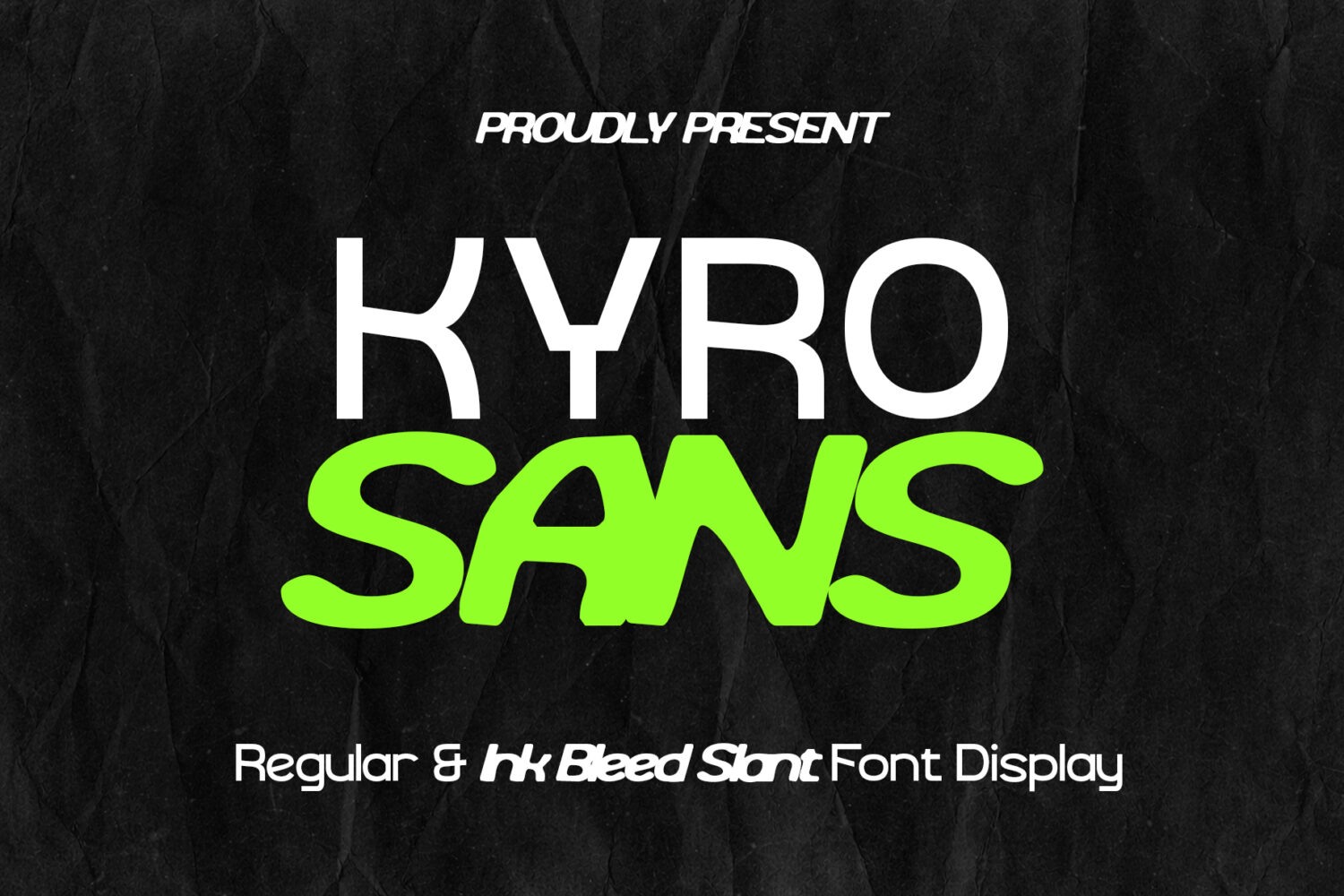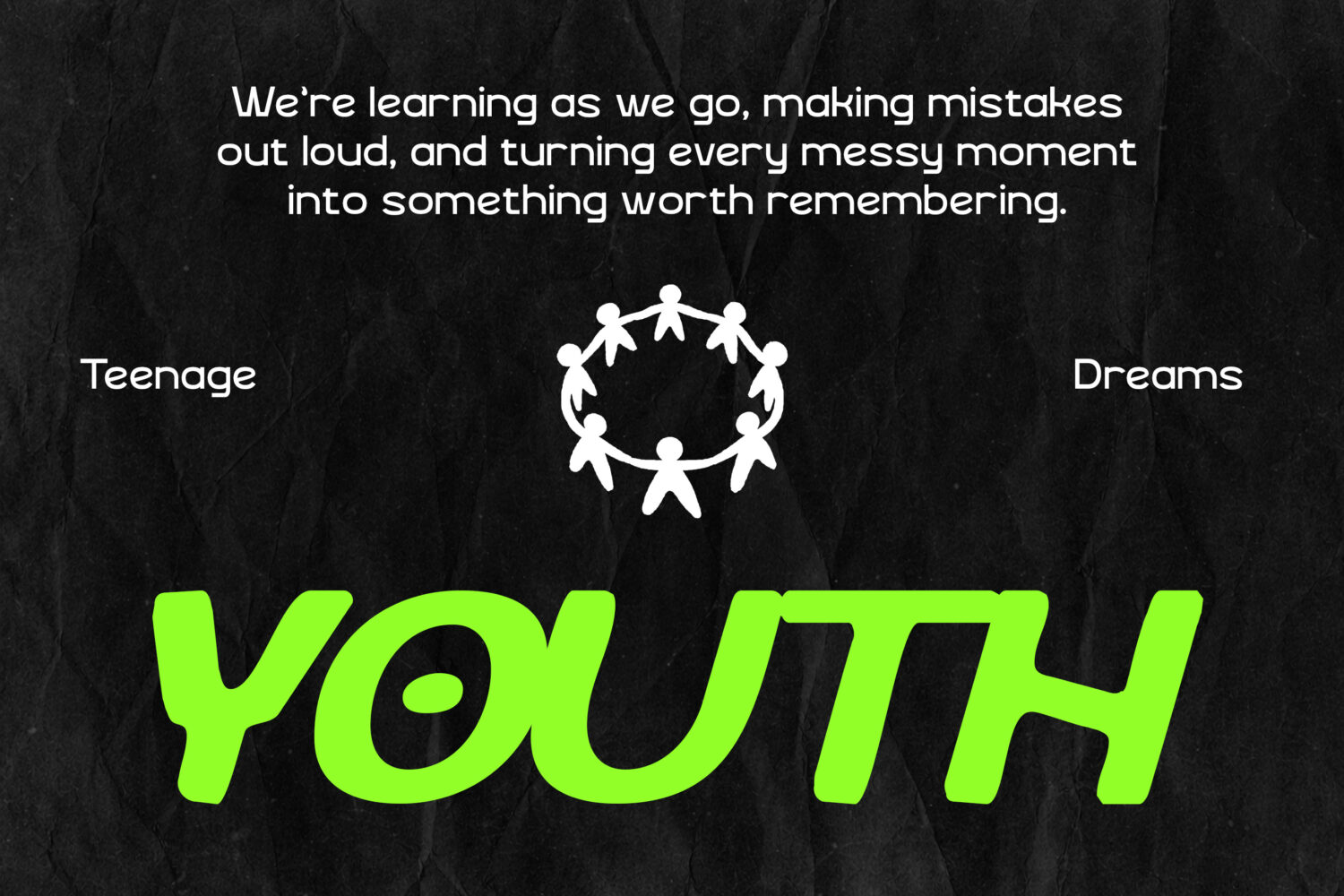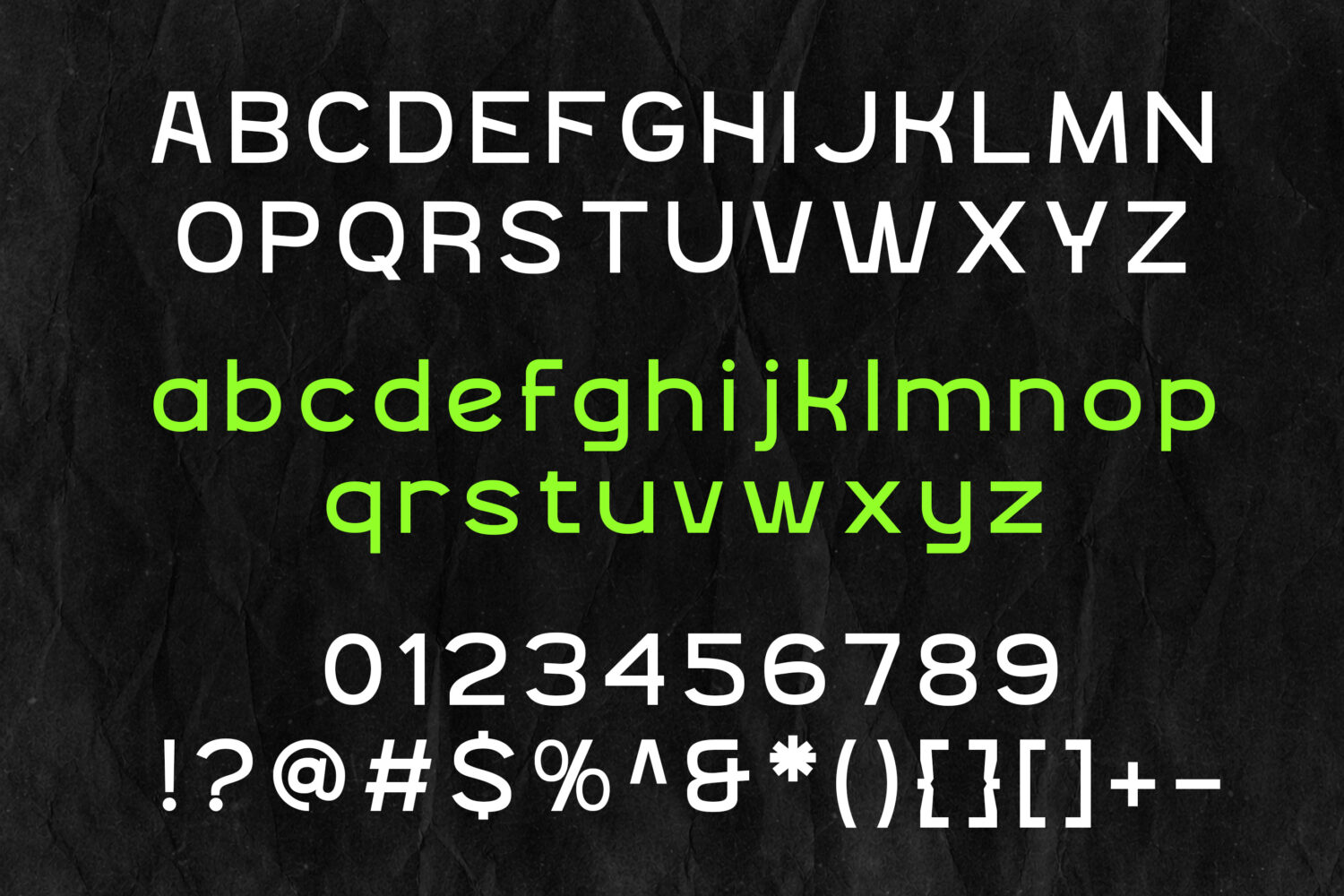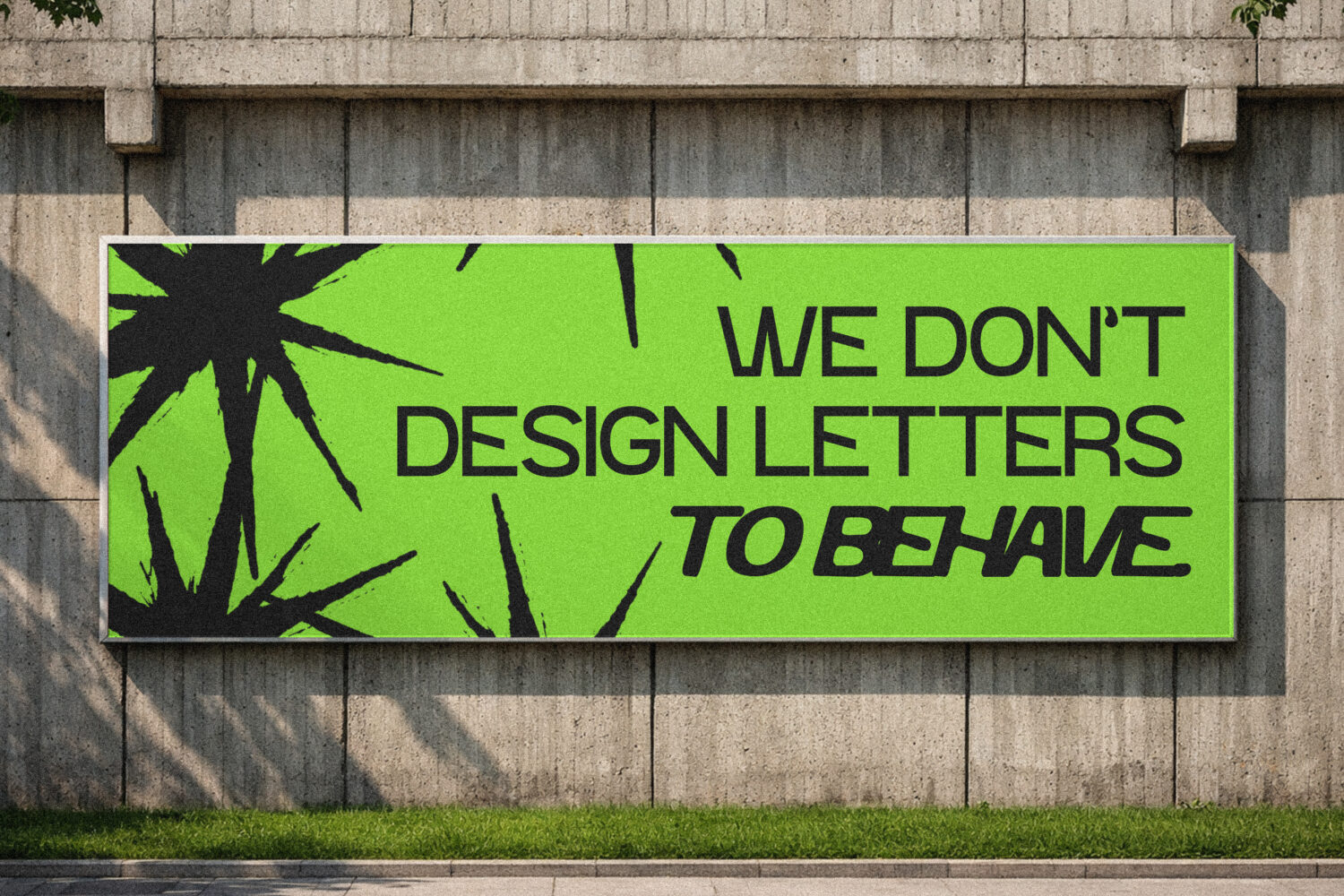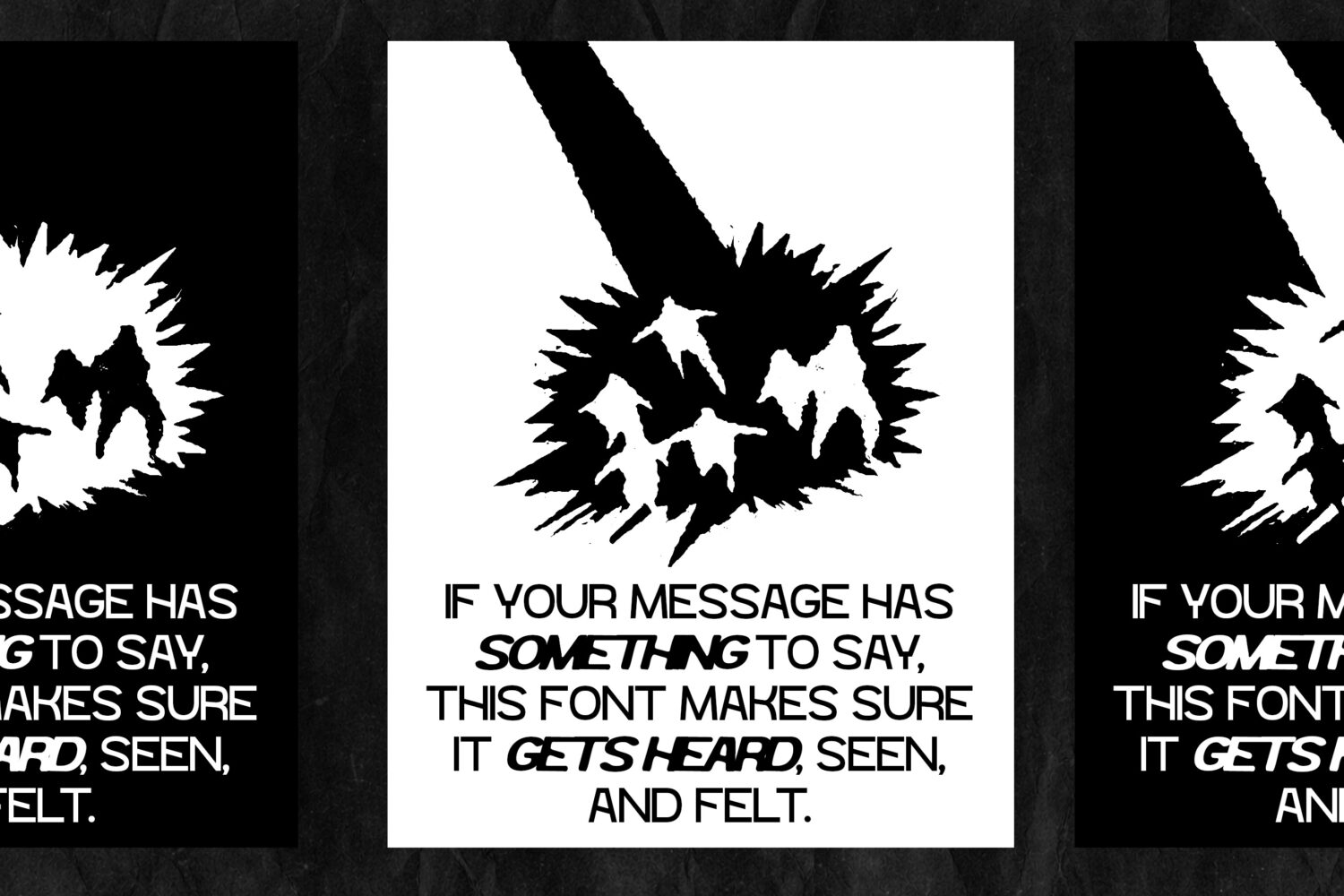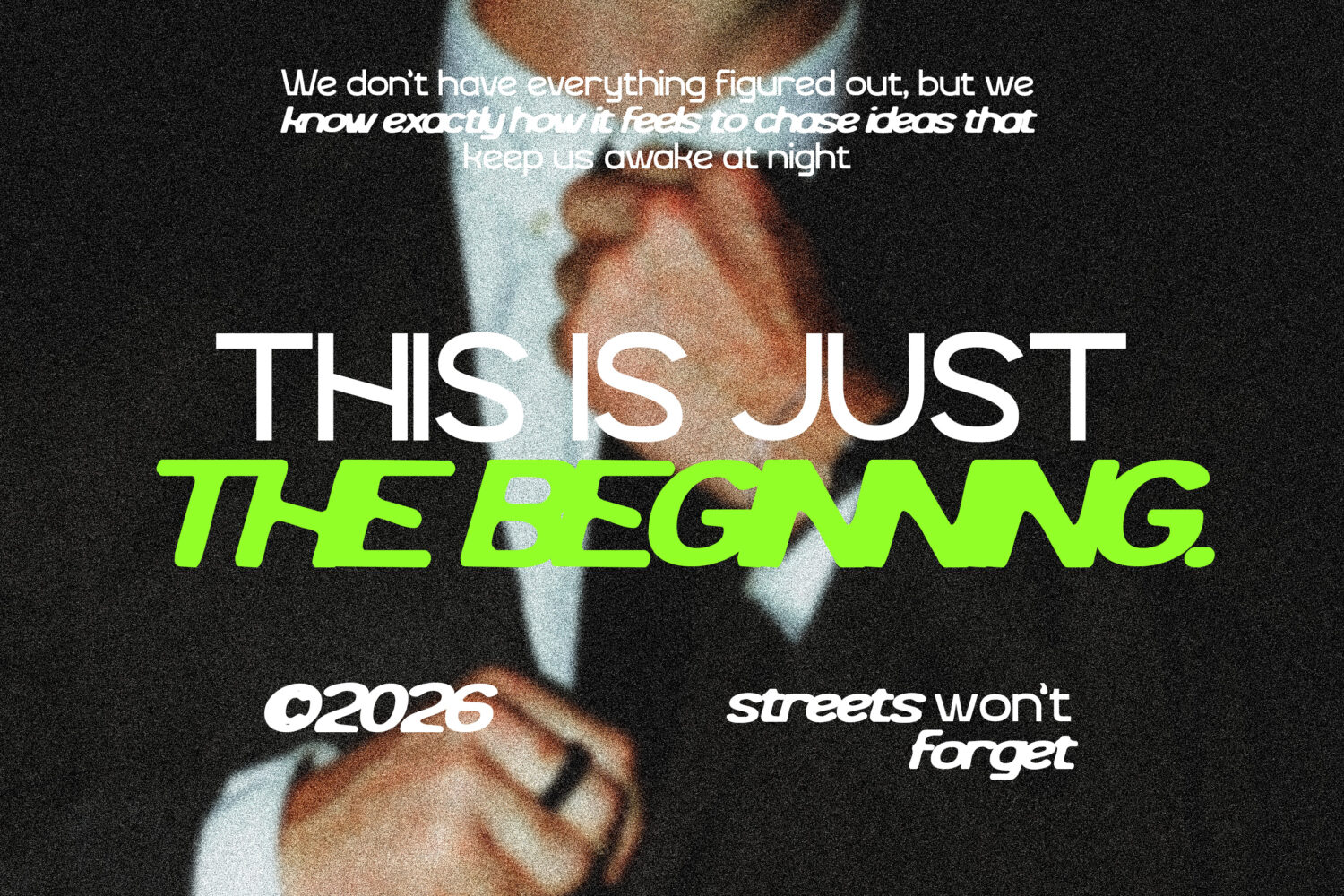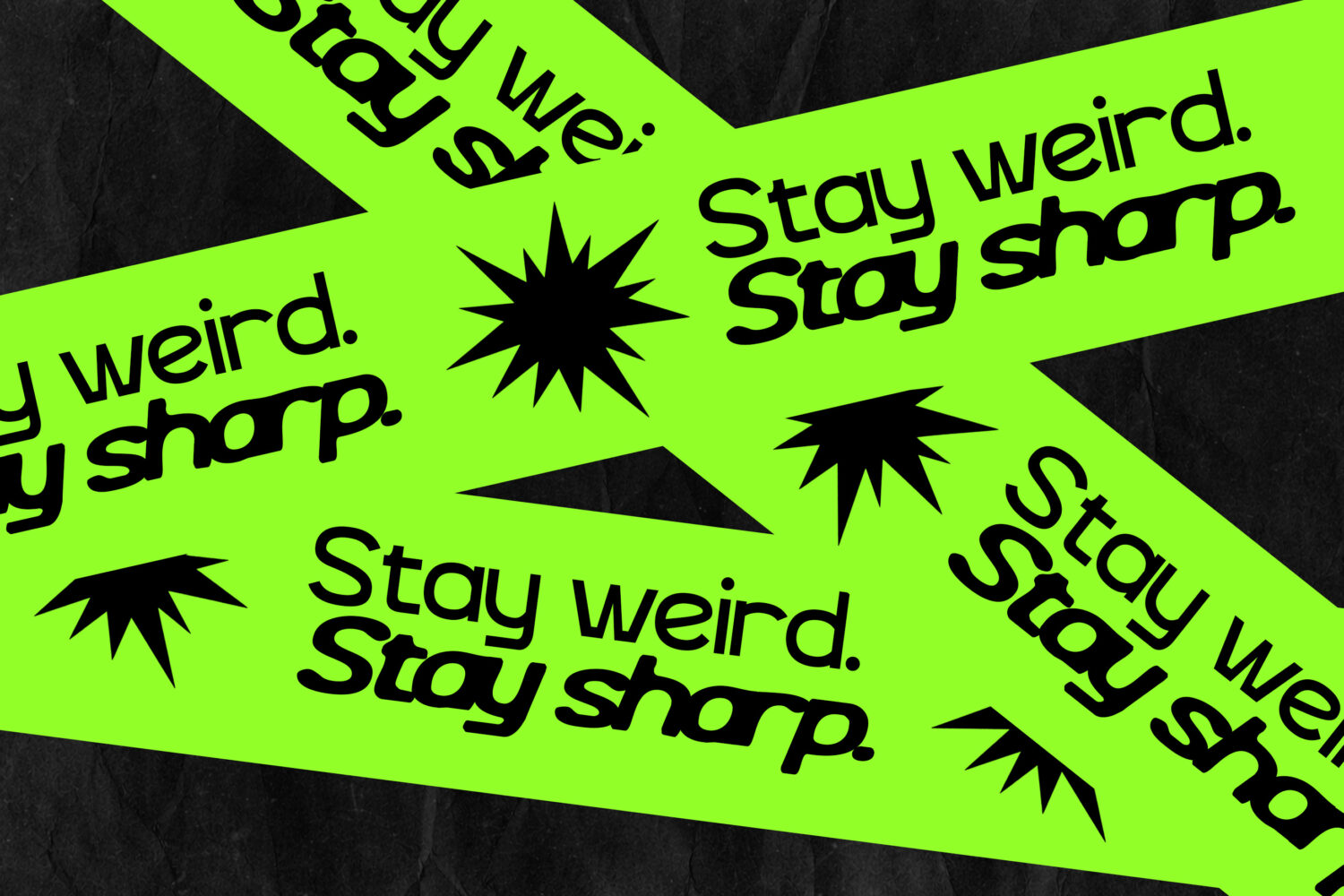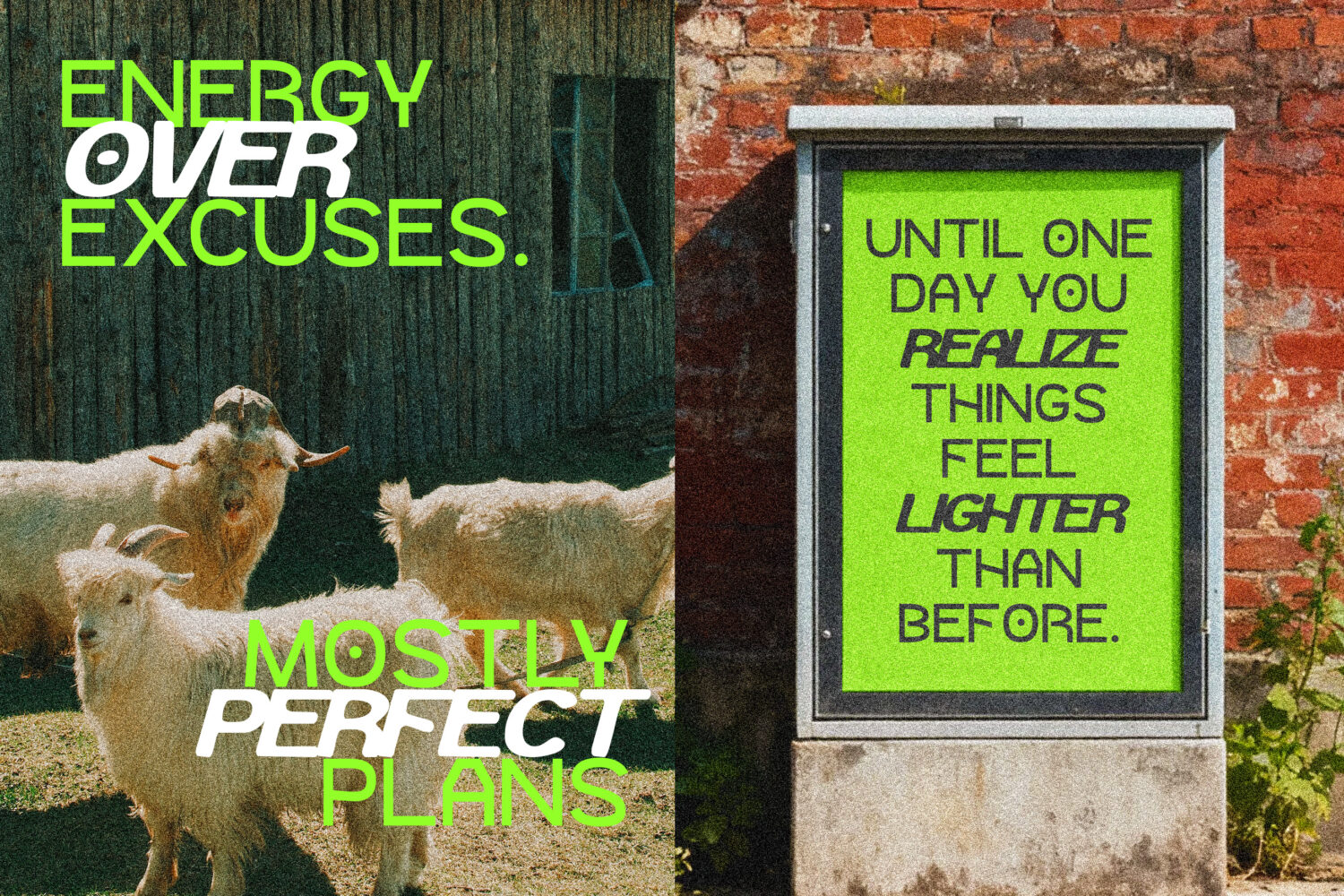
**Kyro Sans** is a modern display font designed to convey a strong, clean, and futuristic impression. With bold letterforms, balanced proportions, and slightly rounded corners, this font is perfect for designs that want a bold and standout look.
Available in two versions: Regular and Ink Bleed, it offers flexibility for a variety of visual styles—from clean looks to more expressive and edgy effects.
This font is ideal for:
* Branding & logos
* Posters & headlines
* Social media graphics
* Packaging design
* Website hero text
* Streetwear & fashion design
Features:
* Uppercase & lowercase
* Numbers & punctuation
* Multilingual support
* 2 styles: Regular & Ink Bleed
Kyro Sans strikes a balance between modern aesthetics and unique character, making it a great choice for creative projects that require a strong and bold identity.